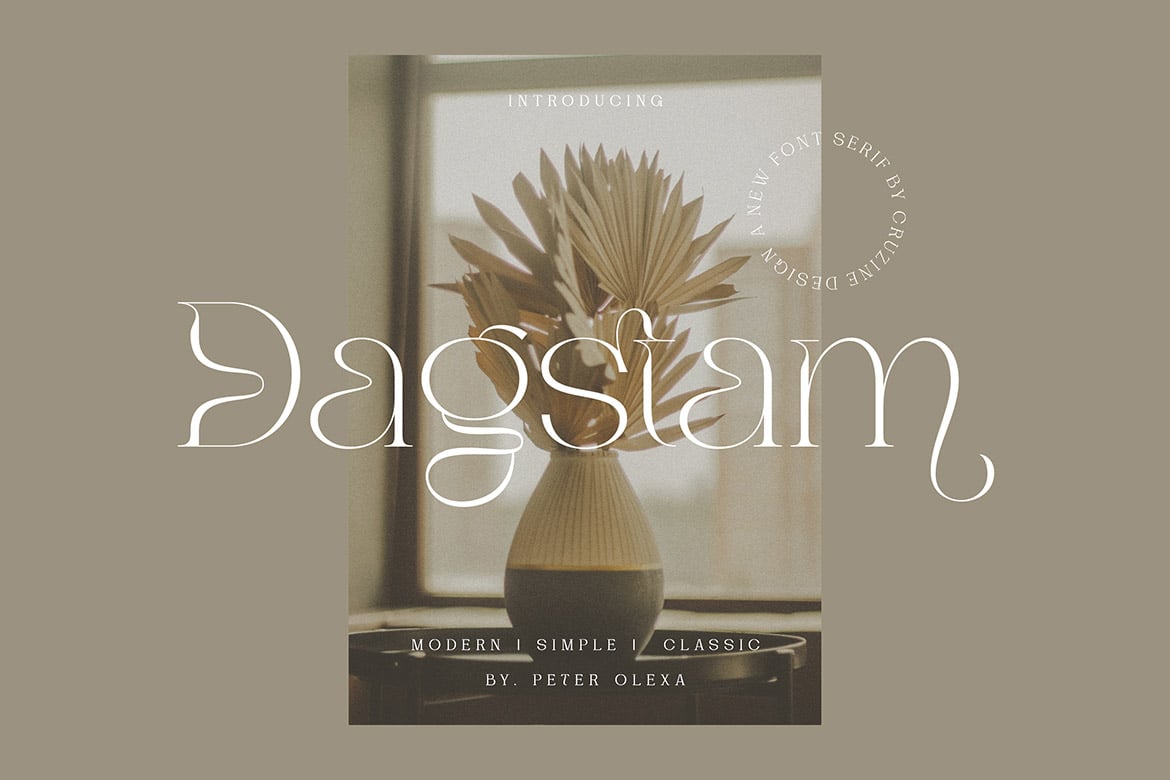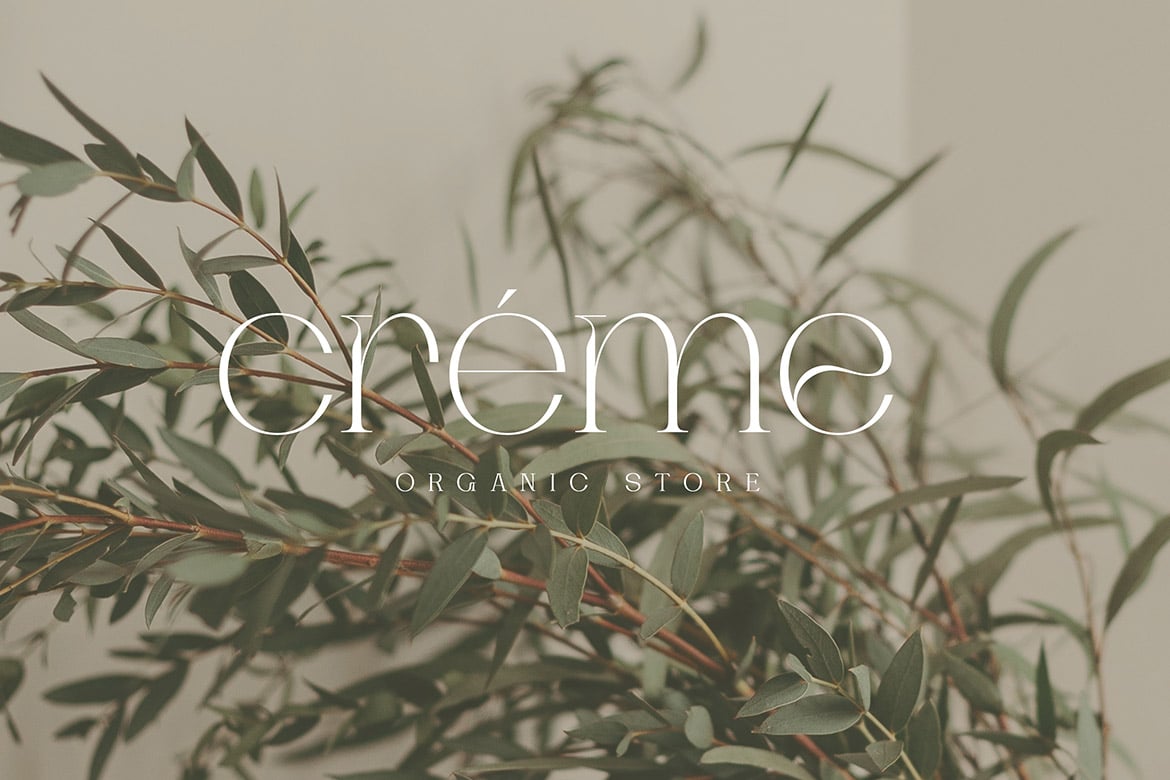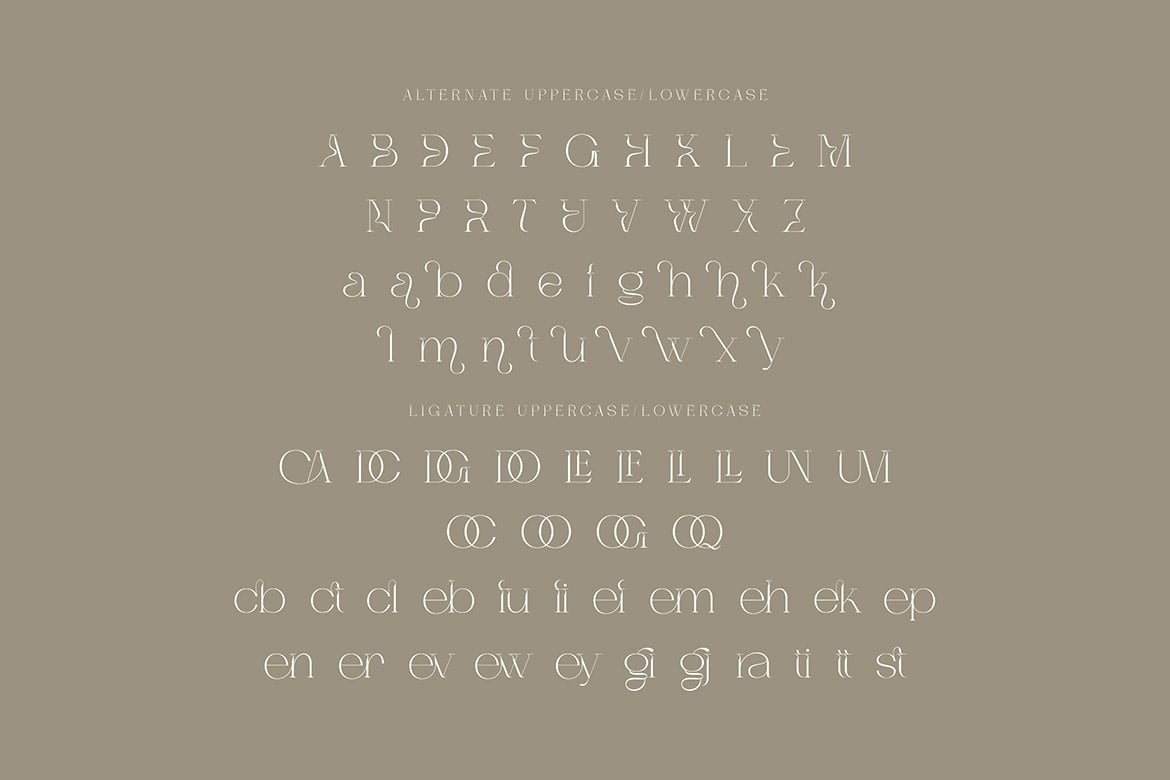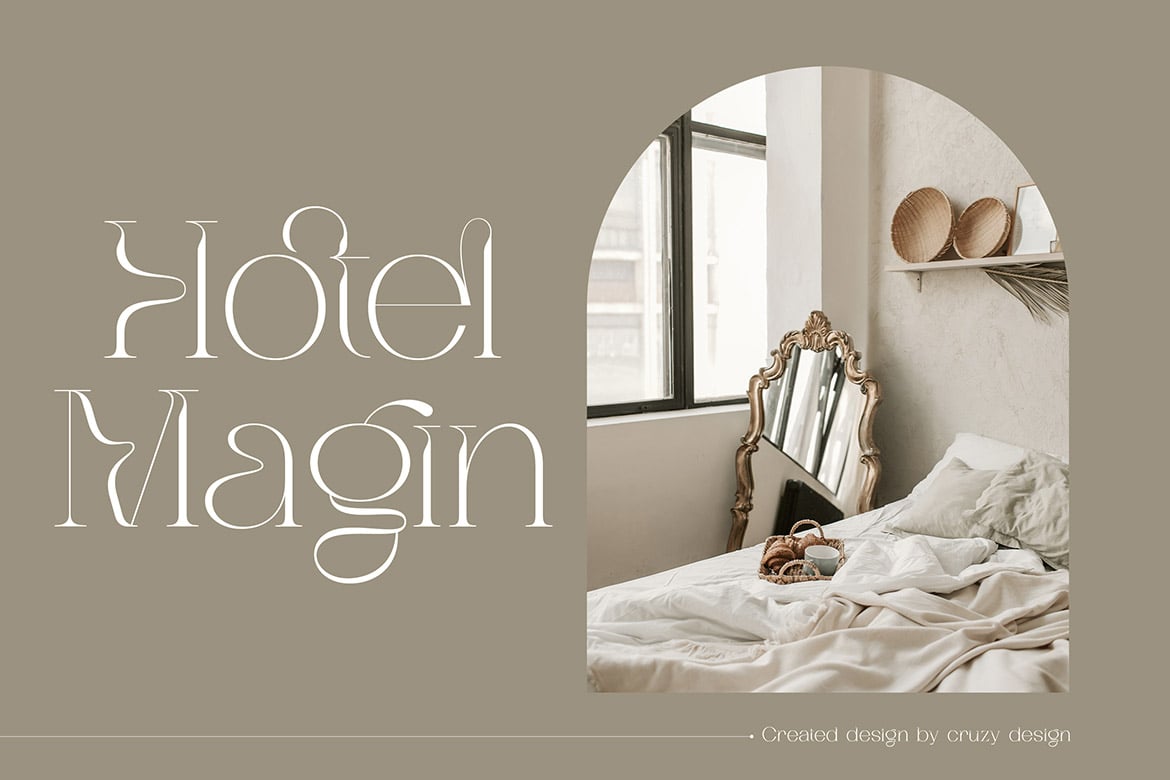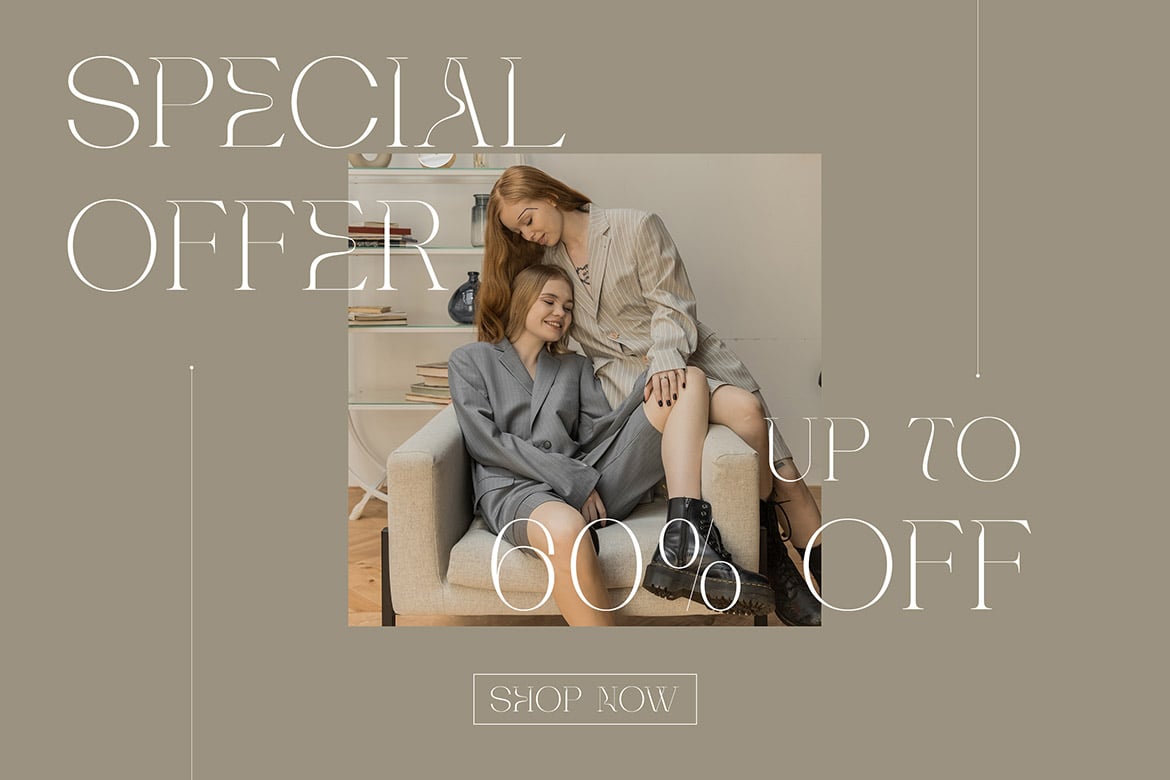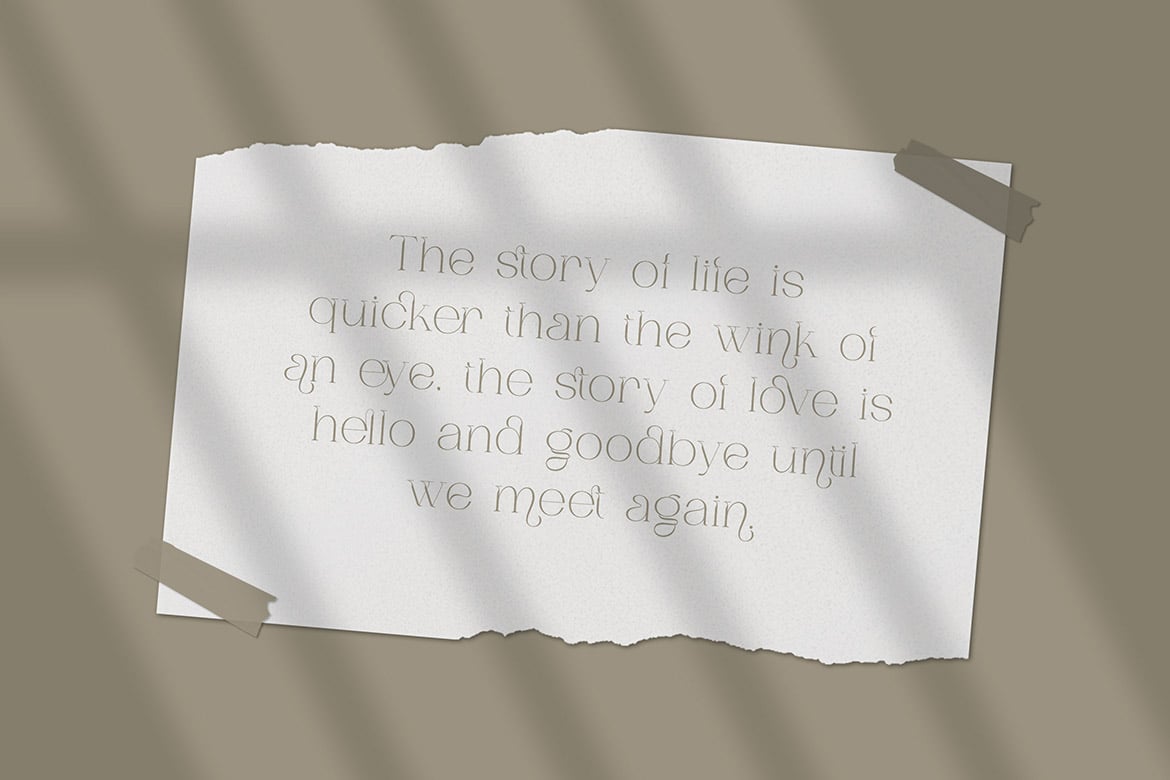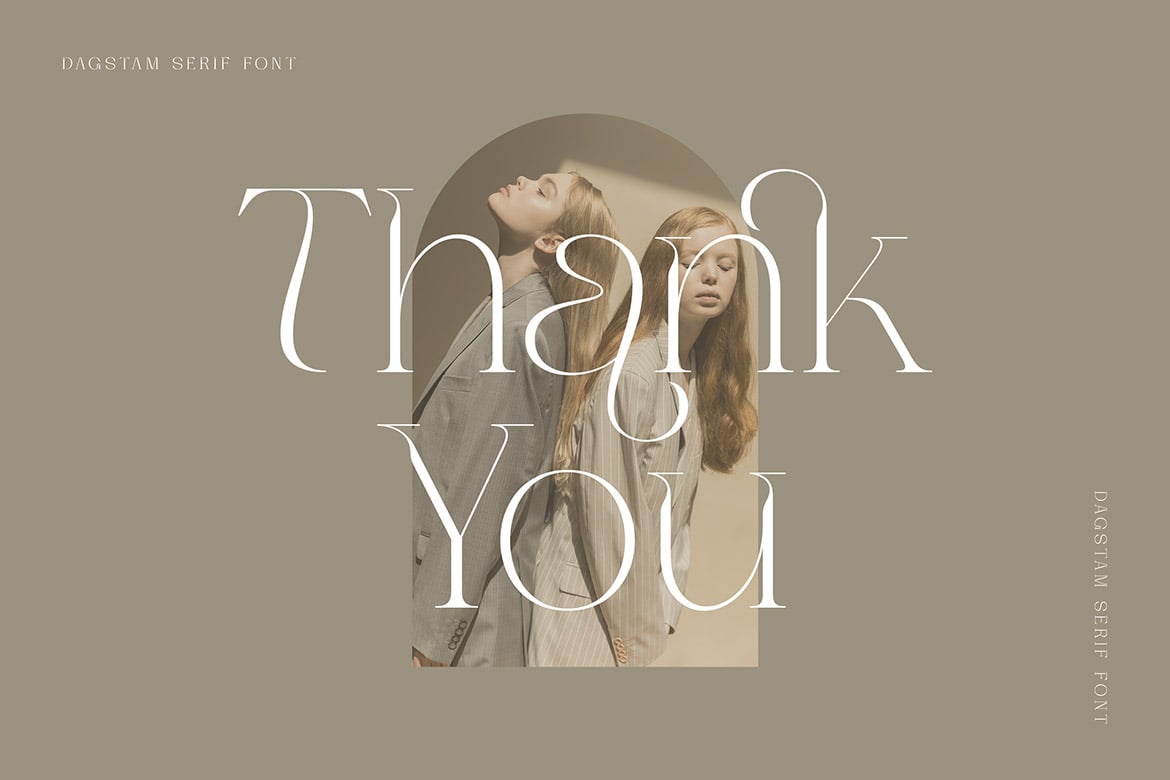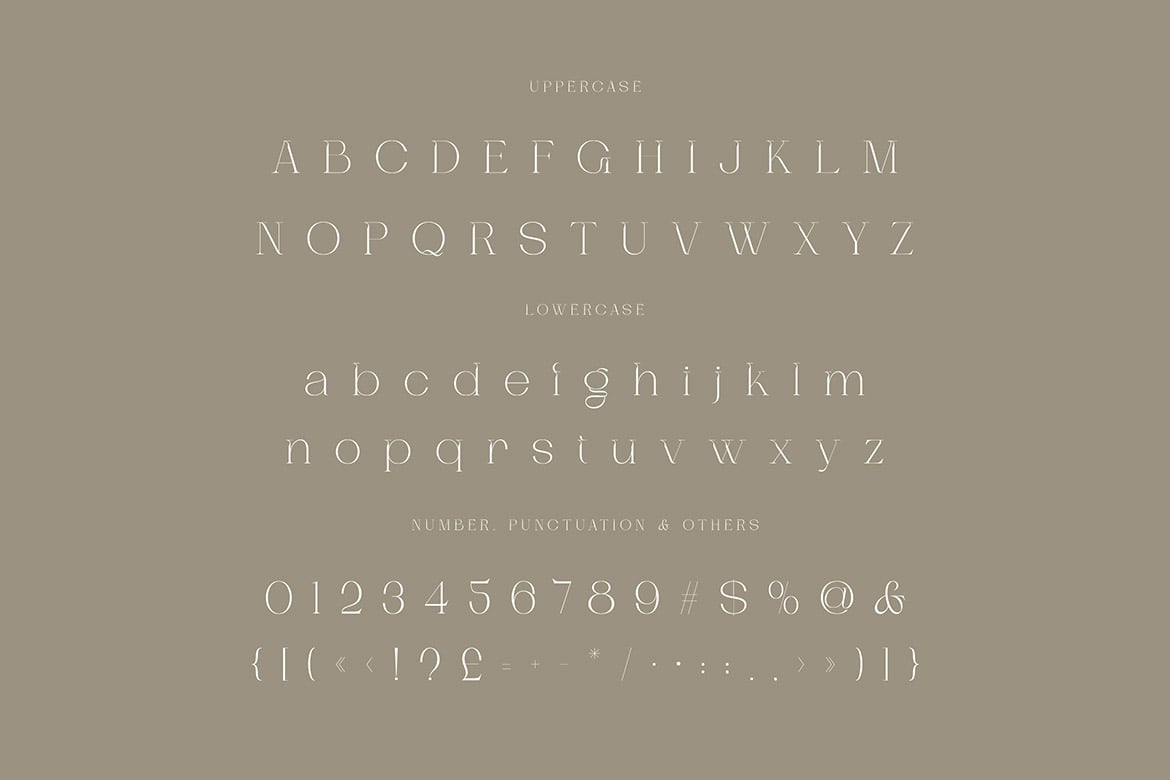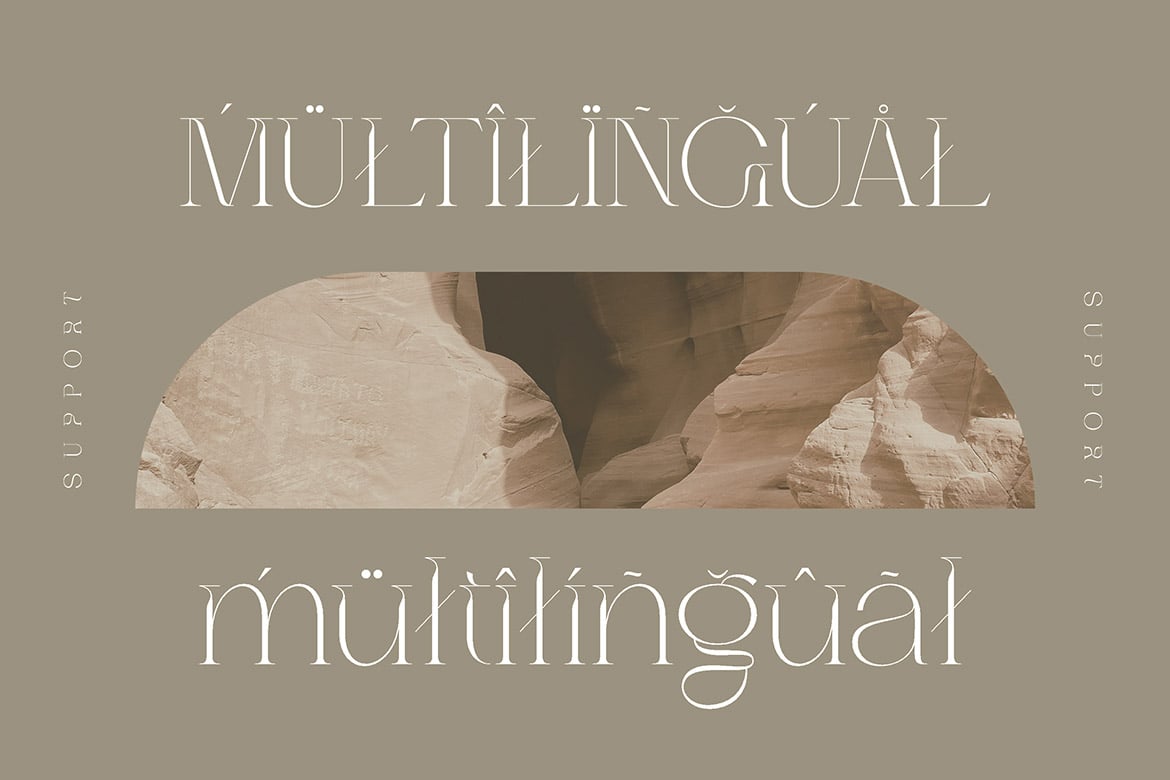
Dagstam – Artistic Serif Font
Trendy, classy & modern style serif font for your fancy projects. Elegant, fashion and classic style on Dagstam font will be great for any branding project. Lot of alternates and ligatures will help you to create unique and original logo design or website header! Enjoy π
- Lot of alternate characters
- Lot of ligatures
- Great for modern branding projects!